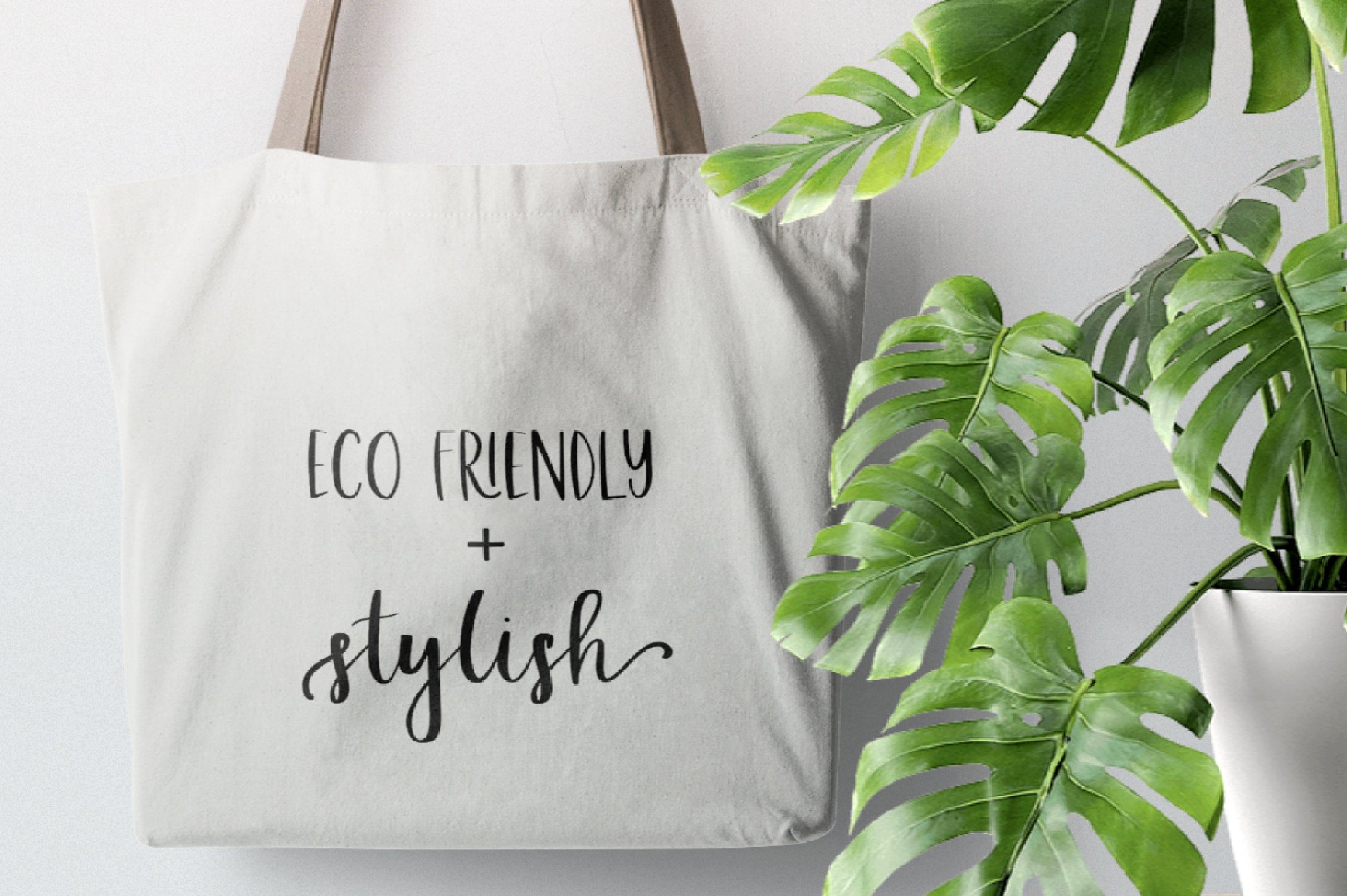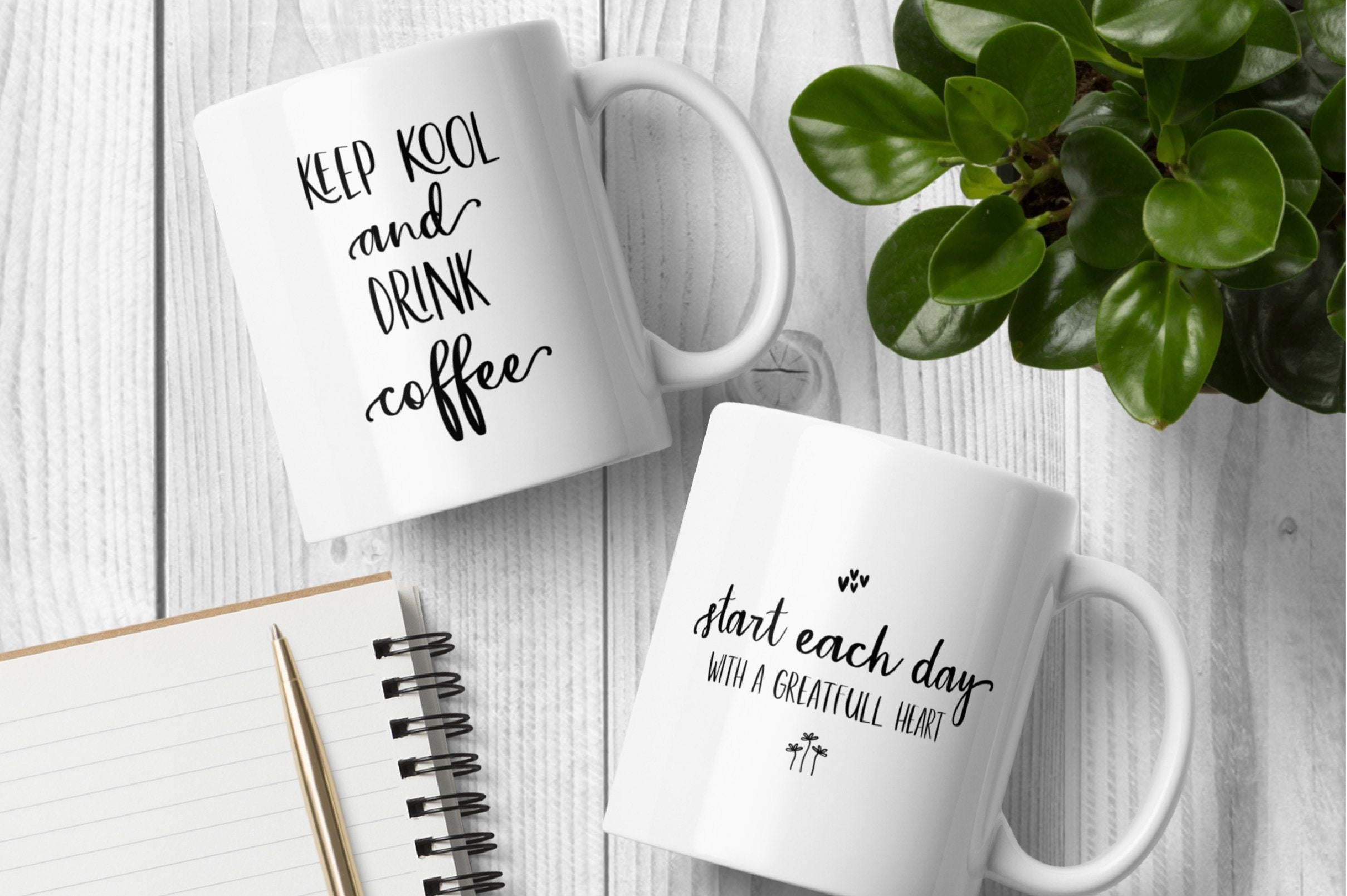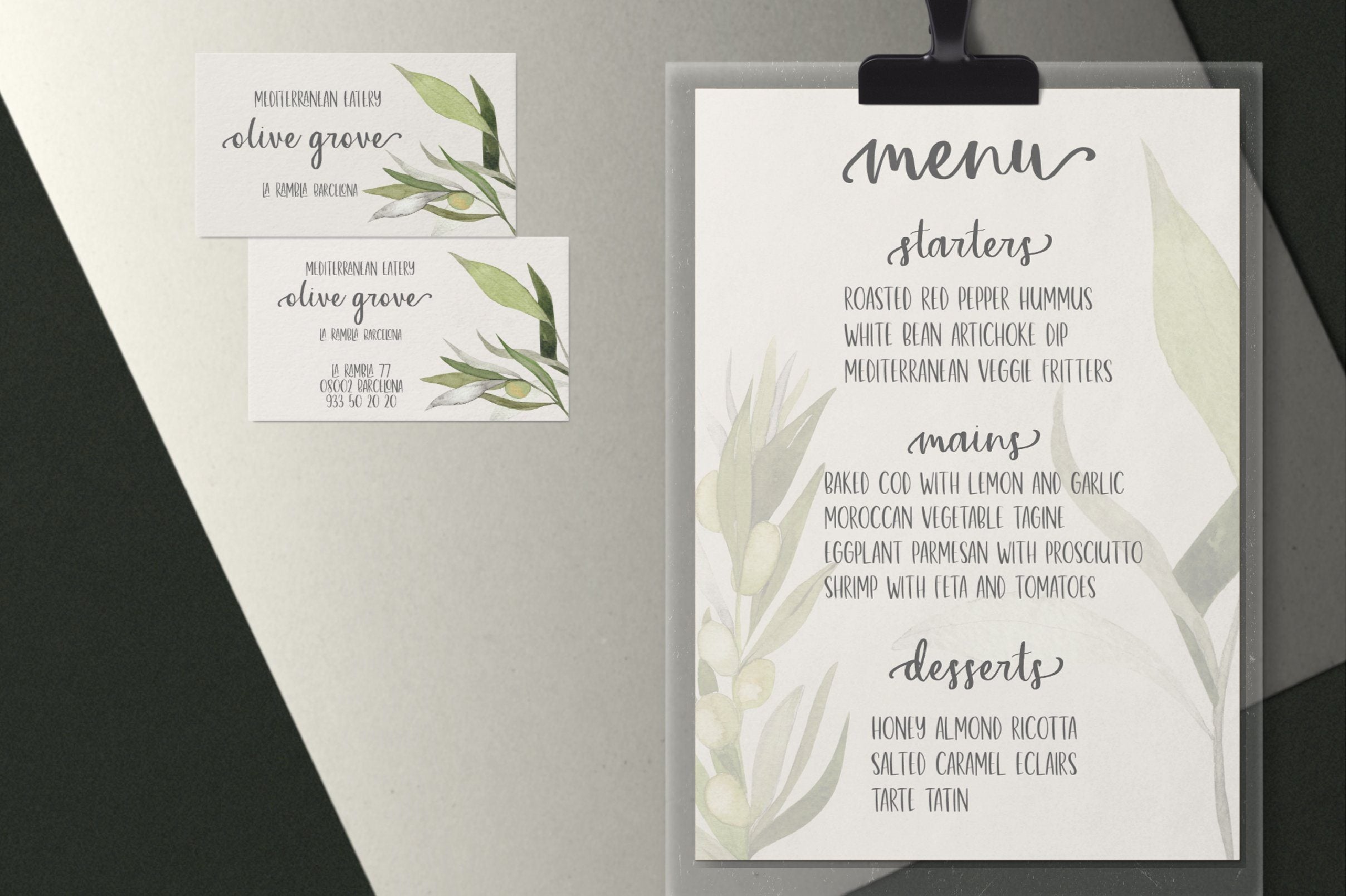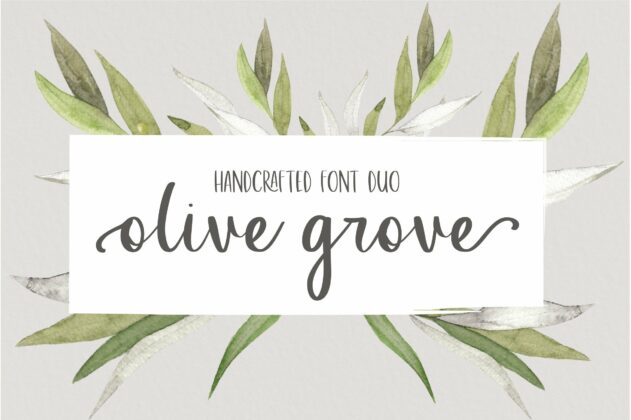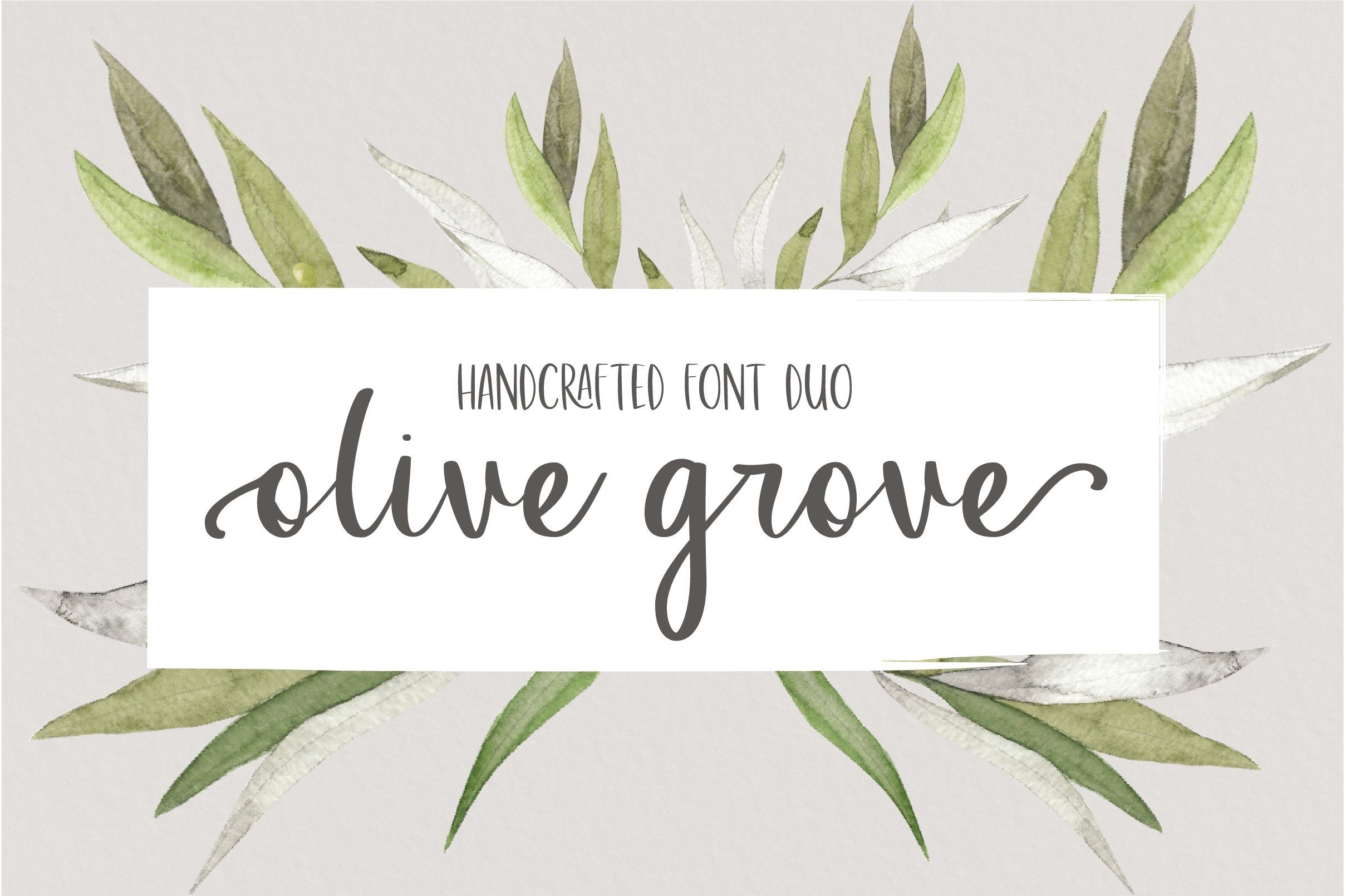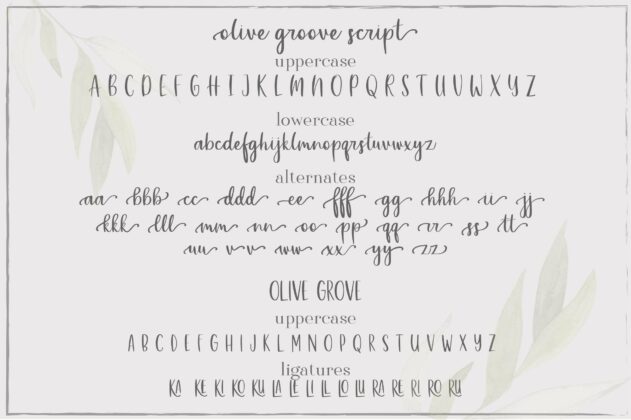
About Olive Grove
Meet Olive Grove! This modern calligraphy font duo is fun, friendly and a great all-round font for your crafting needs! Olive Grove Script has lowercase alternates with beginning and ending swashes that will add dynamic and energy to your designs. Olive Grove is an uppercase font with a few added ligatures that make it fun and functional! As always multilingual support for European languages is included. Thanks!